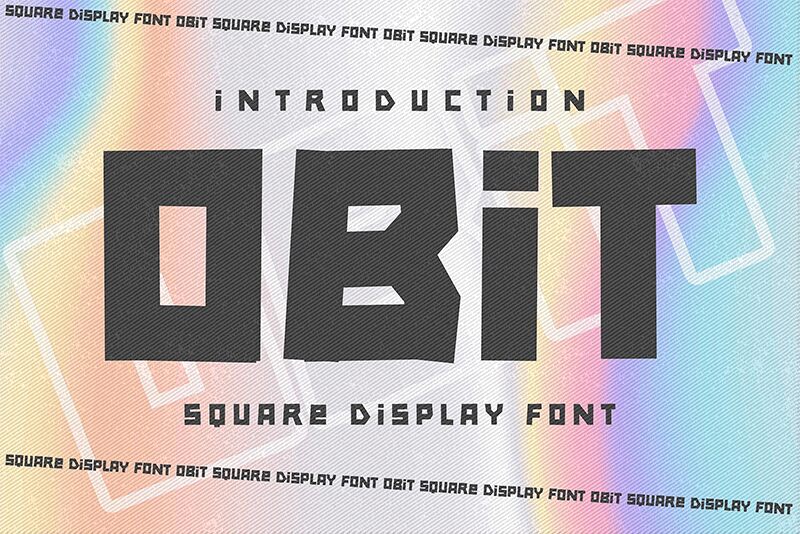
Obit
Obit leaps off the page with its square display charm, crafted meticulously by Gassstype. This extra-bold, semi-expanded font carries the whimsical allure of cartoon styling, making it ideal for designers who want to inject a playful yet modern vibe into their creative endeavors. Its robust weight coupled with an almost casual quickness in line movement allows Obit to command attention effortlessly.
Perfectly suited for a myriad of projects – from eye-catching labels and posters that demand to be read, to personalized branding and heartfelt greeting cards – Obit's versatility shines through. Its unique blend of contemporary style and spontaneous dynamism offers an authentic touch that can elevate any design. Whether you're looking to add a splash of fun to packaging or seeking that special touch for website typography, Obit is poised to infuse your work with character and a distinctly natural look.